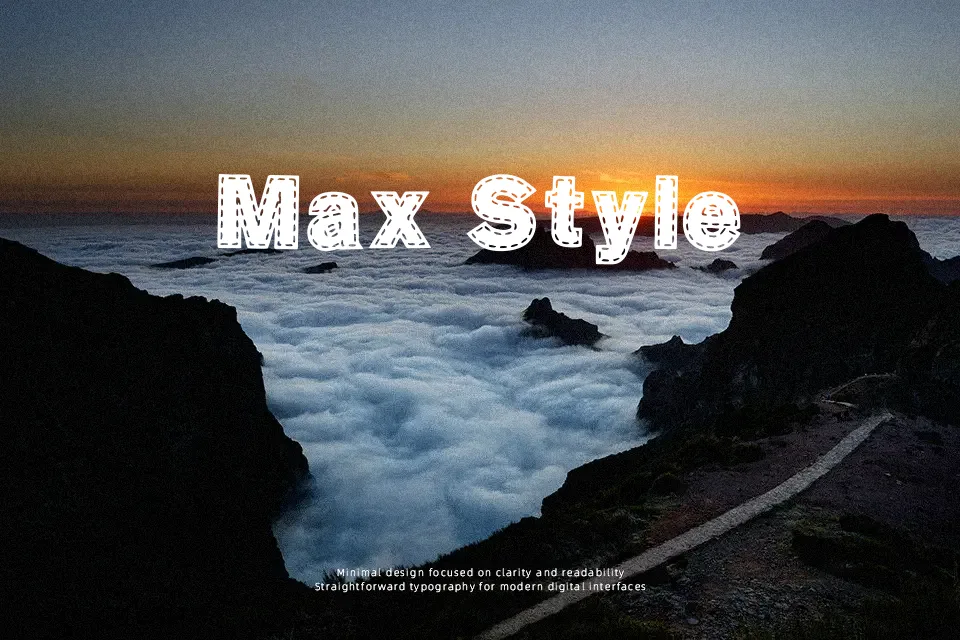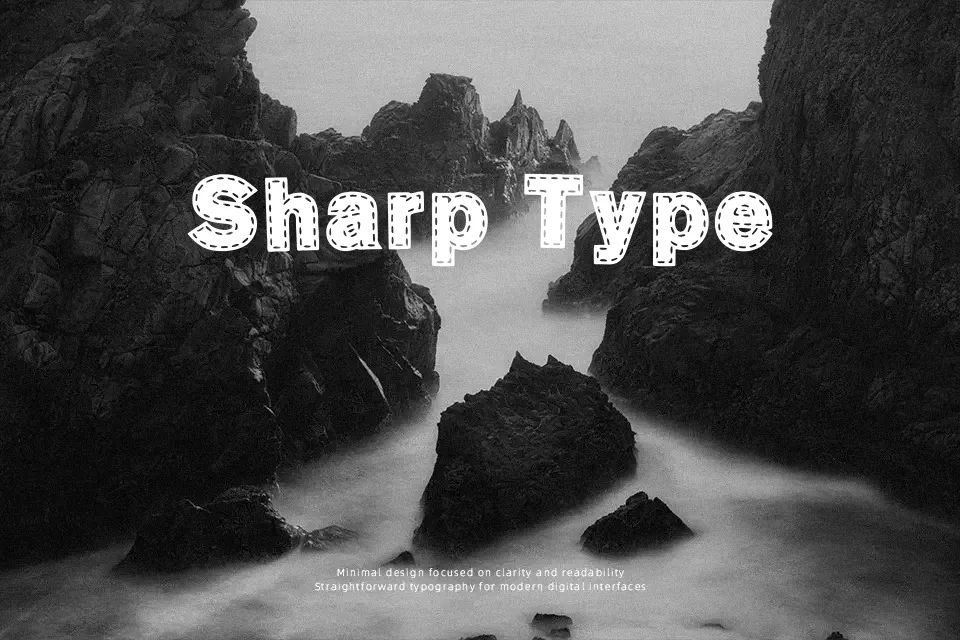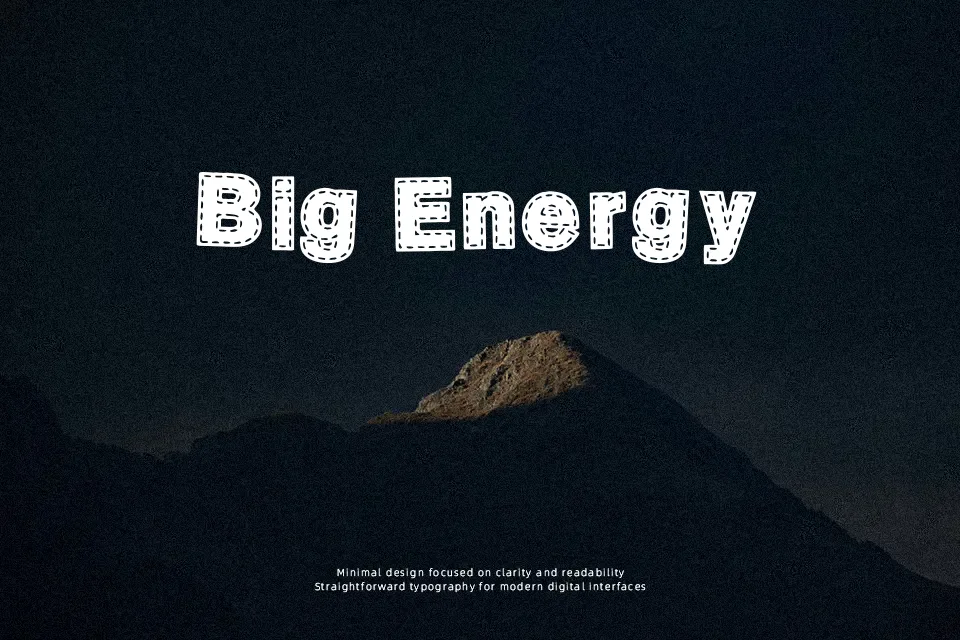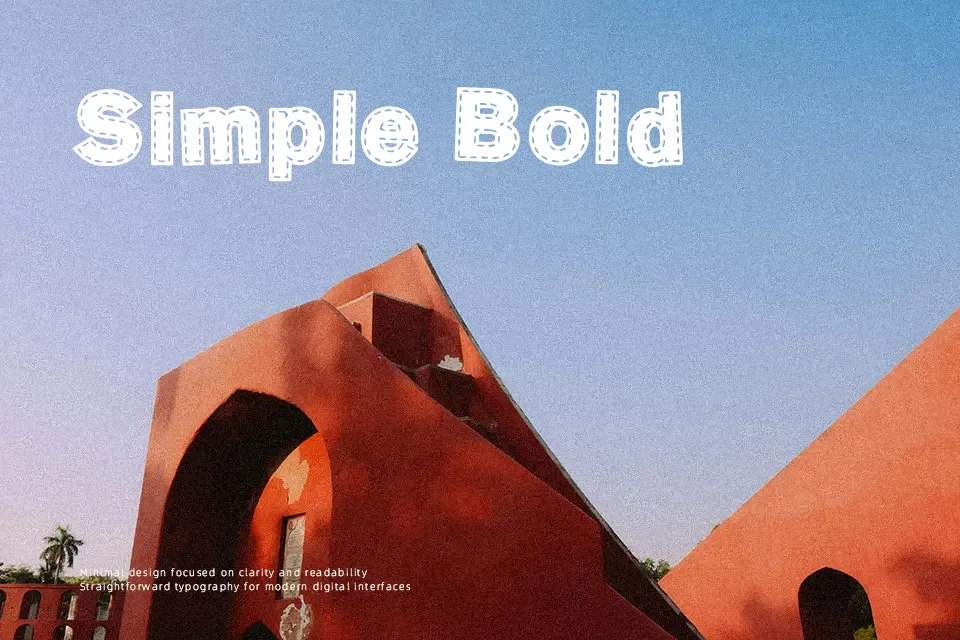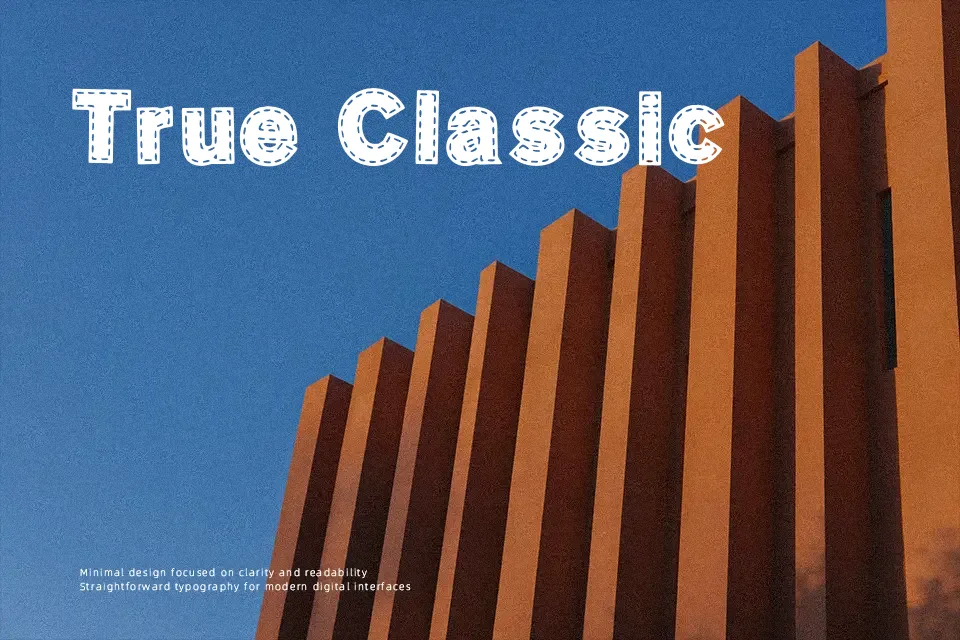
Singer Mears Font
Designed by Corianton Hale
A distinct stitched border defines the letterforms of Singer Mears Font, creating a bold, novelty appearance inspired by garment tailoring. The typeface features solid, heavy character bodies with uniform stroke weights surrounded by segmented dashed outlines. Because the glyph spacing is relatively compact and character widths remain consistent, the design maintains solid visual cohesion across short titles. The dense interior fills paired with outer stitch lines preserve silhouette clarity in larger headline settings. However, the intricate dual-layer construction causes the decorative dashed borders to merge and blur at reduced scales. Consequently, the font is less suitable for continuous paragraphs or compact interface labels.
Best For: apparel branding, sewing craft packaging, craft fair posters, novelty merchandise graphics
Not Ideal For: continuous body text, mobile interface labels, legal documents, technical manuals
Perfect for branding, fashion, and headline, with a bold and decorative style.